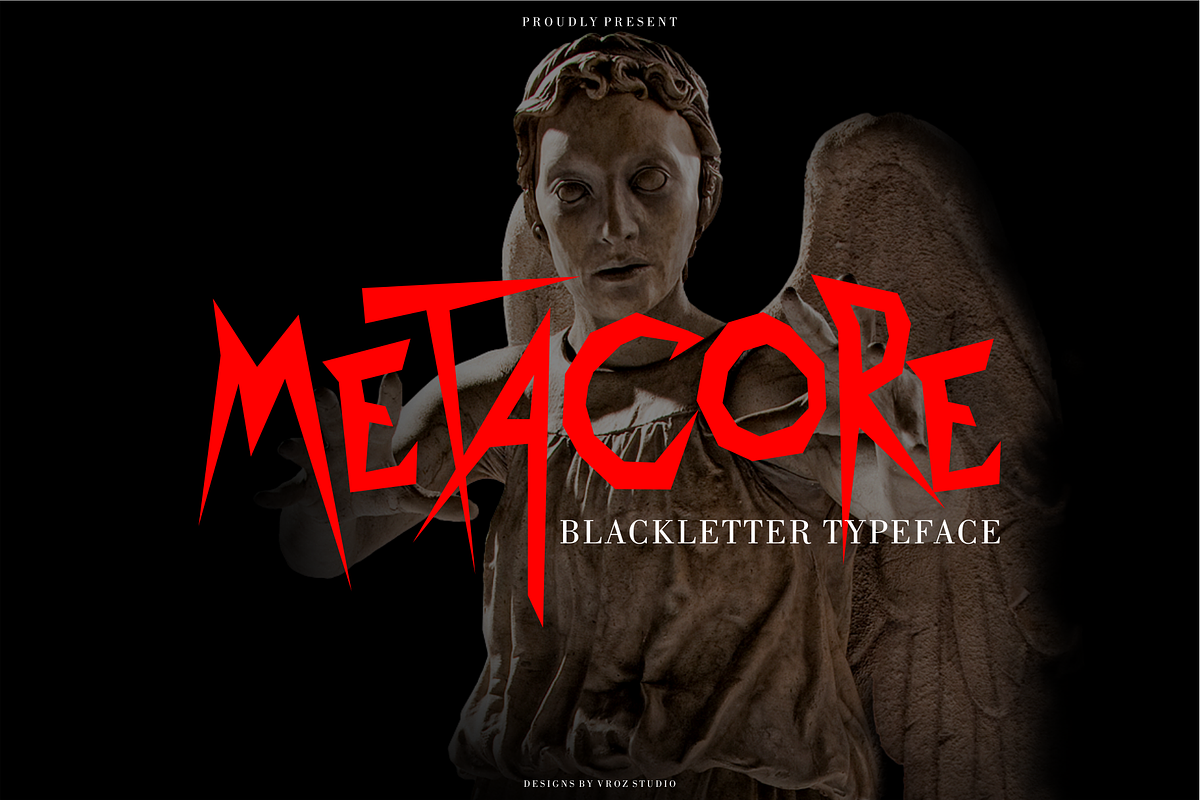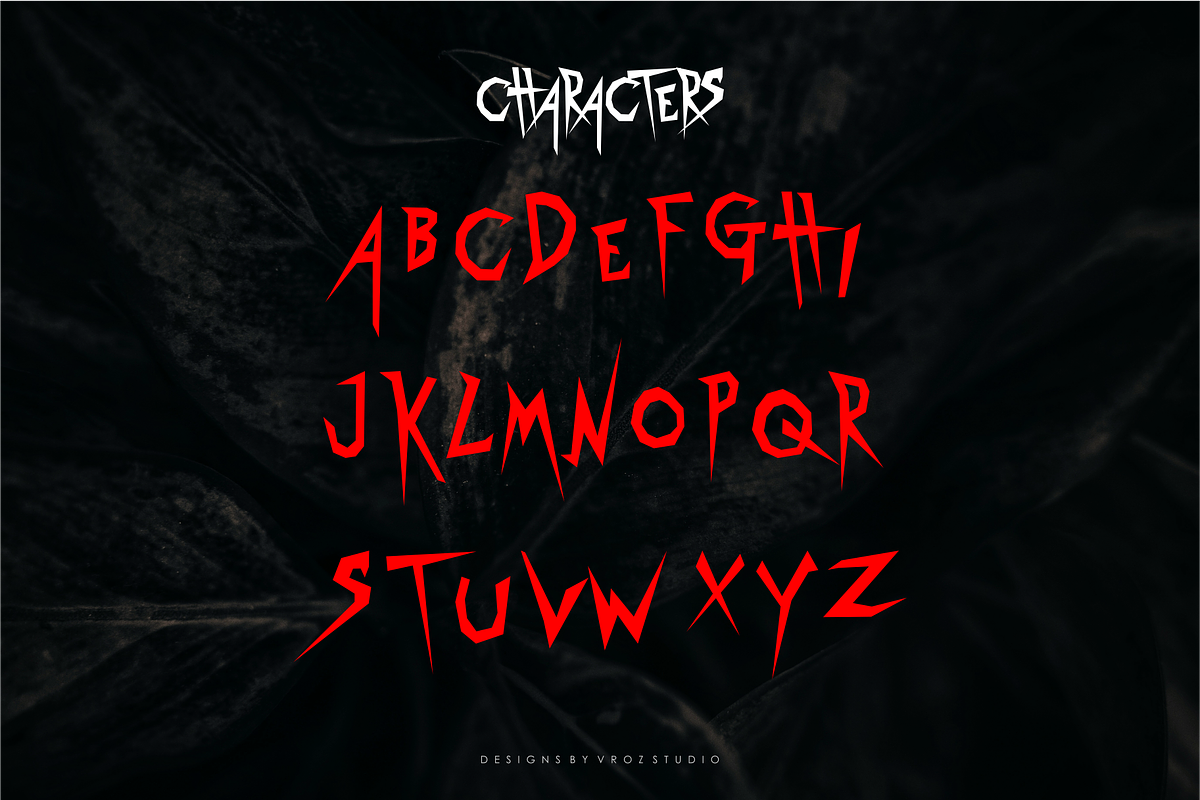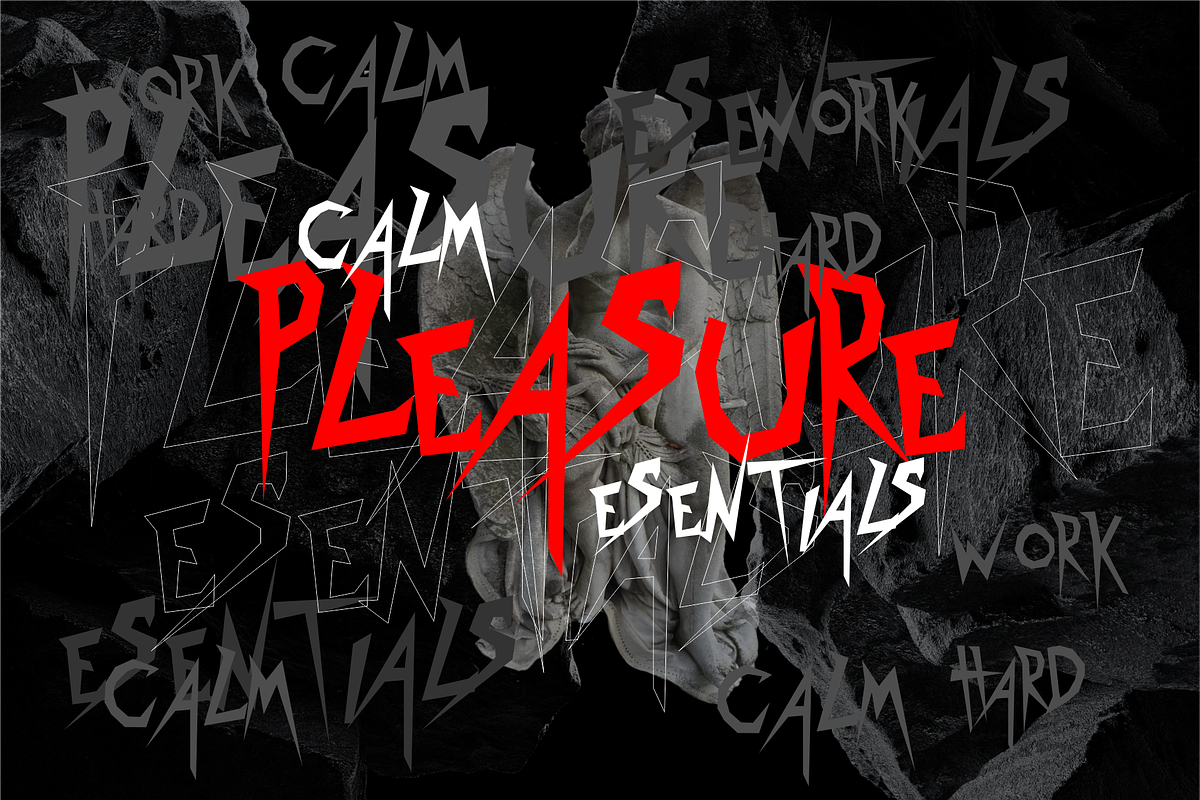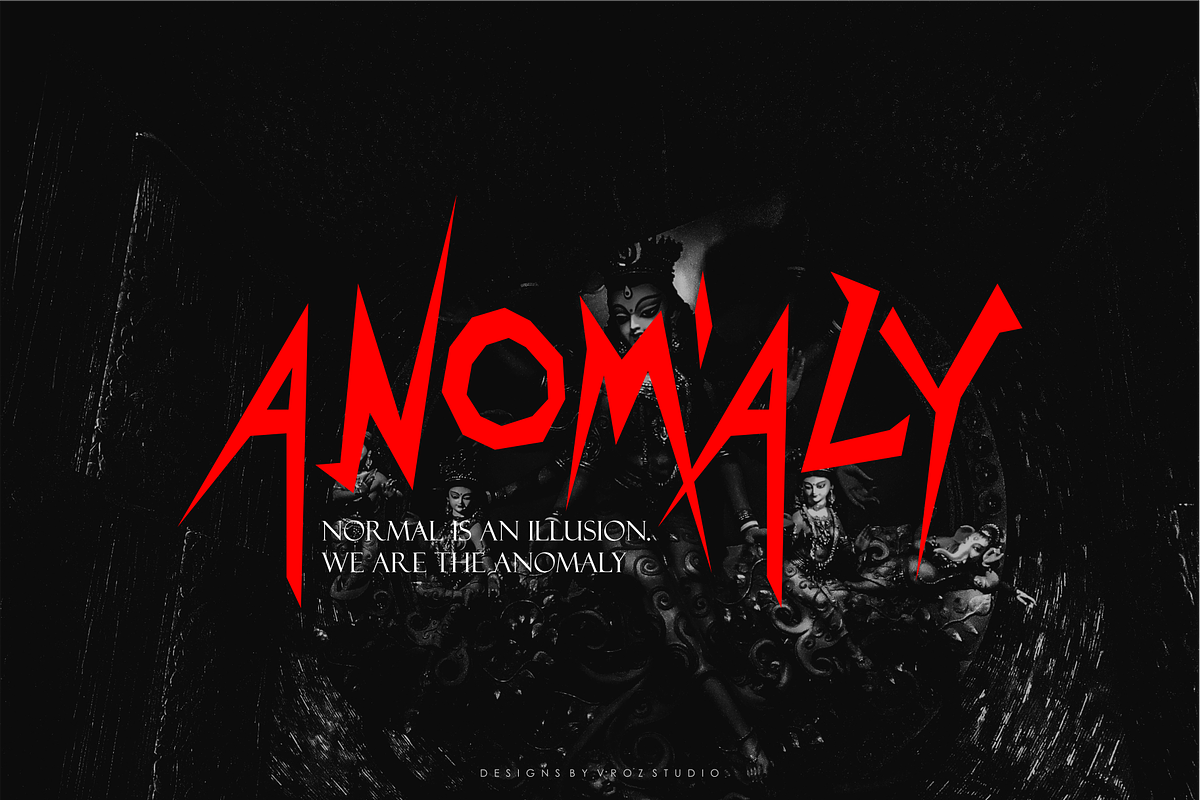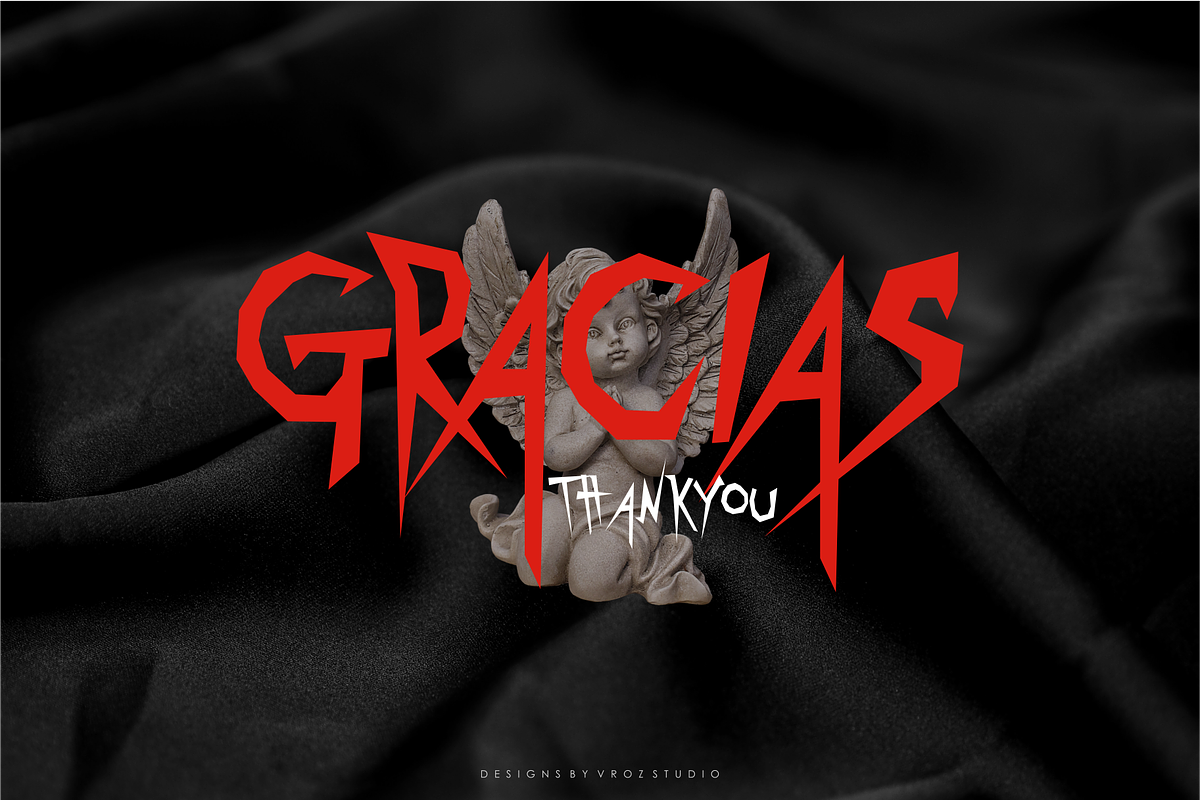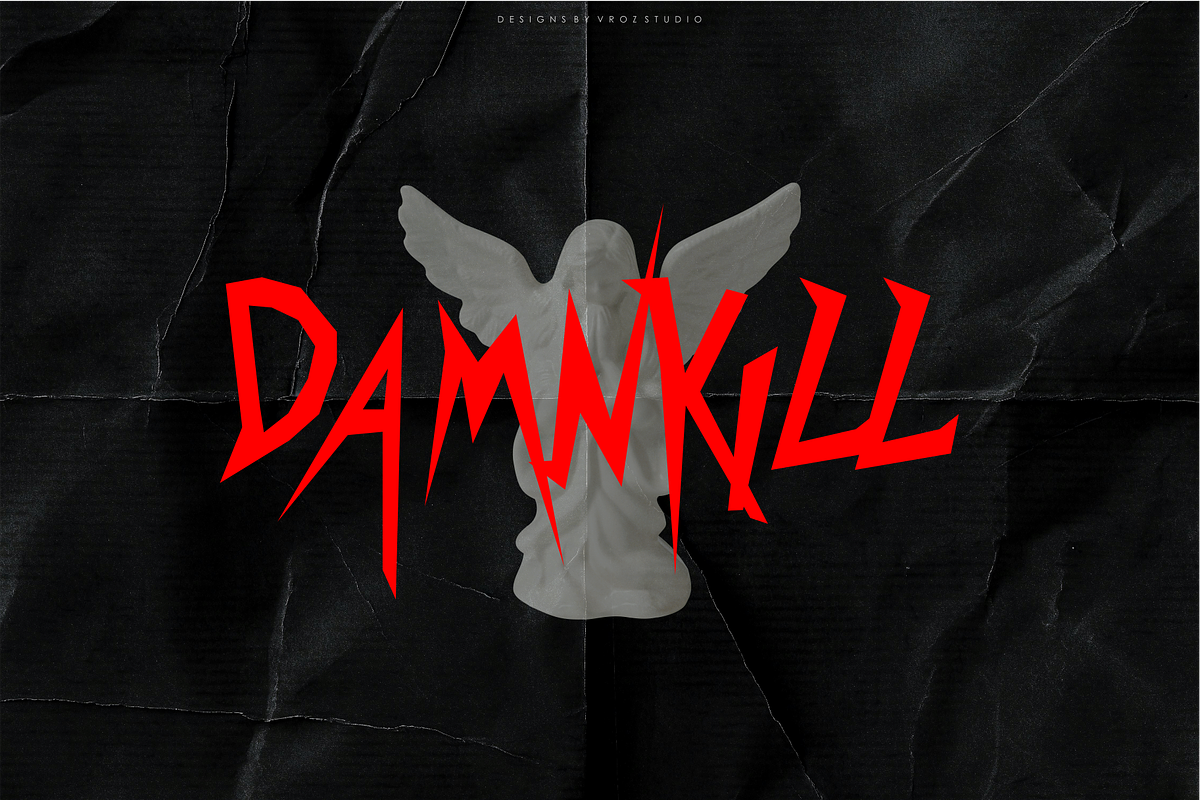
METACORE - Blackletter Typface
Introducing METACORE – A Bold and Authoritative Blackletter Typeface
METACORE is a bold and authoritative font designed to make a statement. Inspired by blackletter tradition and infused with a metallic edge, this typeface combines intricate historical roots with a raw, modern attitude. Its sharp lines, dramatic strokes, and vintage charm make it perfect for projects that need to stand out with strength and style.
Crafted with meticulous attention to detail, METACORE is ideal for band logos, album covers, streetwear, tattoos, merchandise, posters, and other creative works that demand a distinctive and powerful aesthetic.
Whether you're designing for the underground scene, crafting heavy visuals, or just want a font that screams character, METACORE delivers both intensity and elegance in every glyph.